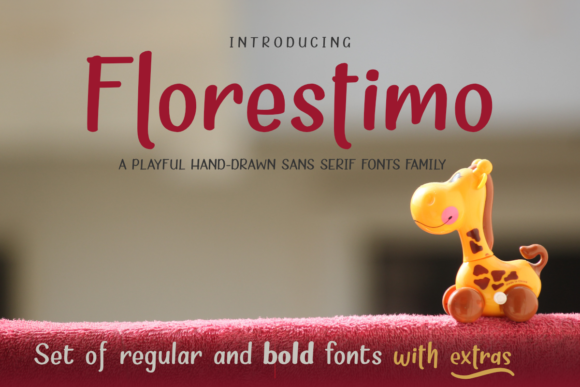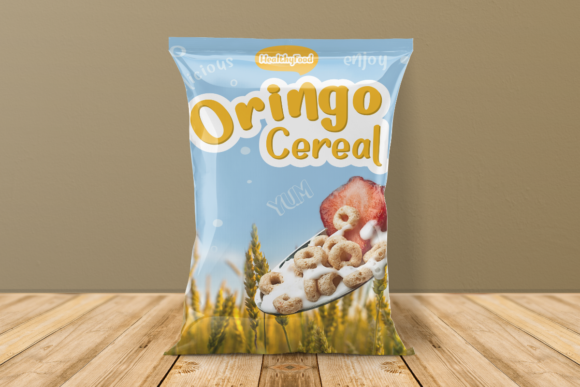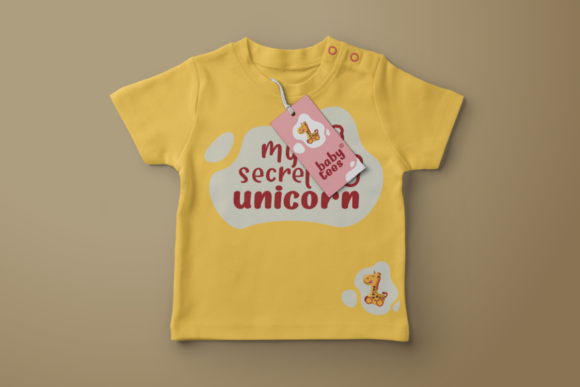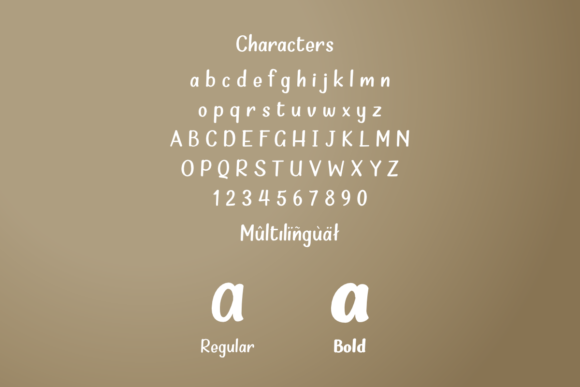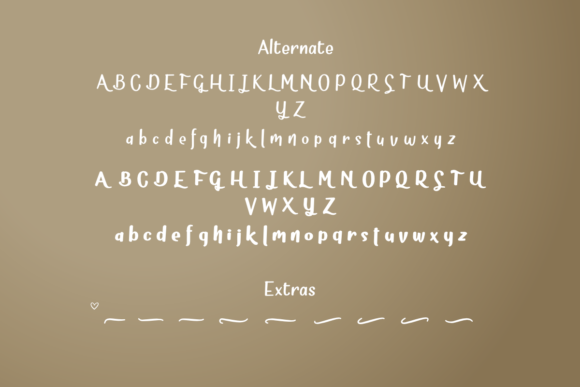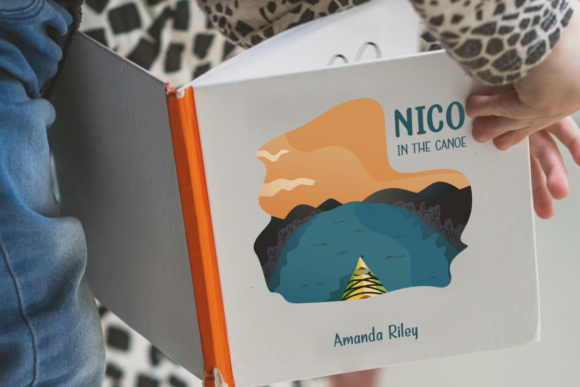
Florestimo Font
About Florestimo Font
Florestimo is a whimsical handwritten font. It will look amazing in merchandising, branding, stationary, t-shirts and much more!
This font is PUA encoded which means you can access all of the glyphs and swashes with ease! It also features a wealth of special features including alternate glyphs and ligatures.